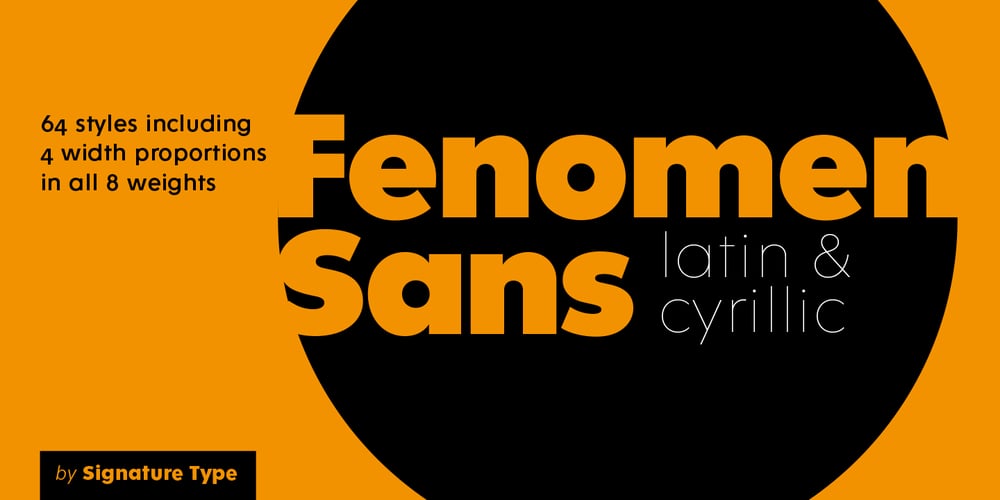
Fenomen Sans Font Family was designed by Rostislav Vaněk, Tomáš Nedoma and published by Signature Type Foundry. Fenomen Sans contains 64 styles and family package options. Geometrical drawing of Fenomen Sans typeface goes back to the roots of the Bauhaus aesthetics and the entire architectural and design avant-garde of the 20th century. It is still a symbol of functional rationality, clean aesthetics in relation to shape, and of progressive thinking. Its popularity is timeless and permanent. The set contains eight basic alphabets of a square pattern, eight semicondensed, eight condensed and eight extremely condensed alphabets, all in Latin and Cyrillic alphabets. Every font of the family has four types of numerals, small caps and variant letters. The typesetting can fluently use all fonts simultaneously. The typeface originated between the years 2011–2014 and was subjected to a series of tests for the fluent legibility of narrow fonts even in extreme conditions. Narrow fonts provide this set with the maximum use also for newspaper typesetting. The typeface has an elegant, delicate design in thin fonts and sufficient legibility in bold. Mutual contrast produces creative tension.Font name acronyms described:SCN = SemiCondensedCN = CondensedXCN = ExtraCondensed